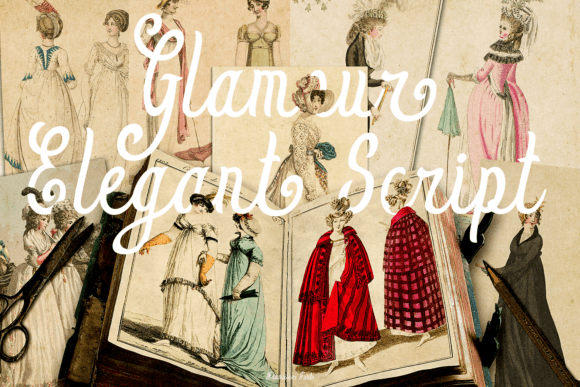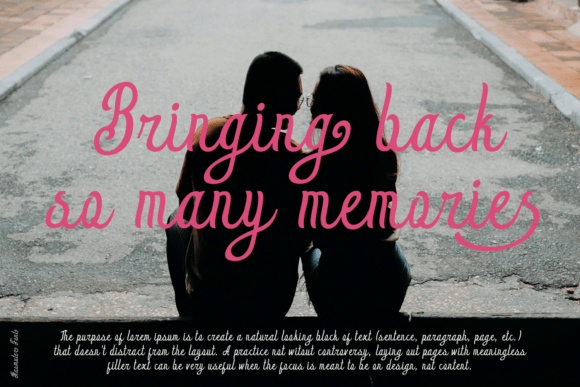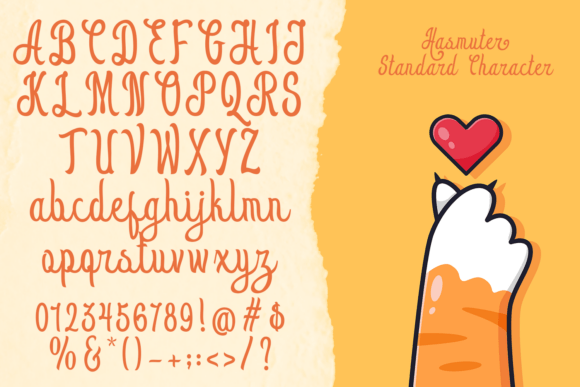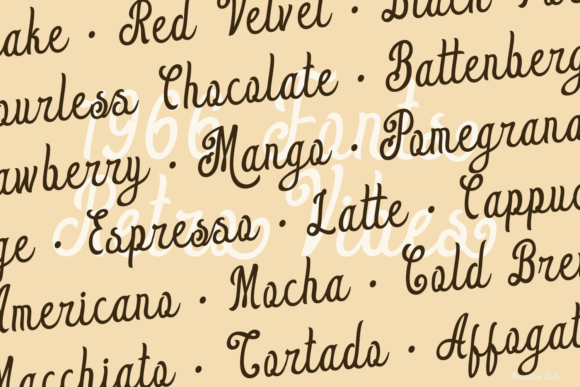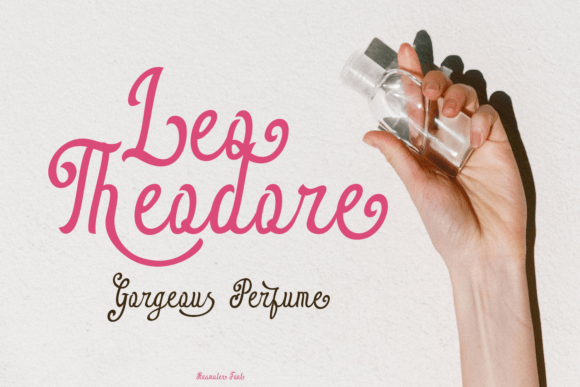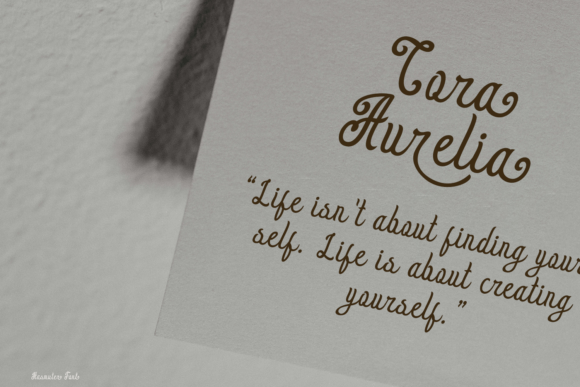
Hasmuter Font: A Timeless Retro Script for Elegant Designs
In the world of typography, fonts play a crucial role in conveying the tone and personality of a design. For designers and crafters looking to add a touch of elegance and nostalgia to their work, the Hasmuter Font is an excellent choice. Specifically, the Hasmuter Brush Classic Script is a retro script that embodies the spirit of the 1970s with its unique blend of retro charm and refined sophistication.
The Essence of Hasmuter Brush Classic Script
The Hasmuter Brush Classic Script is more than just a font; it’s a statement piece that can elevate any design project. This elegant script font is characterized by its smooth curves and sleek lines, making it perfect for a wide range of applications. Whether you’re working on branding, product packaging, invitations, quotes, headlines, labels, posters, or logos, this font is sure to leave a lasting impression.
Why Choose Hasmuter Font?
There are several reasons why designers and crafters should consider adding the Hasmuter Font to their toolkit:
- Elegance and Sophistication: The Hasmuter Brush Classic Script exudes elegance and sophistication, making it ideal for designs that require a touch of refinement.
- Retro Charm: With its 70s retro style, this font brings a nostalgic feel to modern designs, setting them apart from more contemporary typography.
- Versatility: This font can be used across various design projects, from digital content to print materials, due to its clear and readable nature.
- Comfortable Reading: The smooth curves and flowing lines of the Hasmuter Brush Classic Script create a rhythm that is comfortable to read, making it suitable for longer texts as well as headlines.
Applications of Hasmuter Font
The versatility of the Hasmuter Font makes it suitable for a multitude of design applications:
- Branding: Use the Hasmuter Brush Classic Script to create memorable brand names or taglines that stand out.
- Product Packaging: Add a touch of elegance and retro charm to your product packaging, making it more appealing to customers.
- Invitations: Whether it’s a wedding invitation or a party invite, this font adds a classy and sophisticated touch.
- Quotes and Headlines: The elegant nature of the font makes it perfect for highlighting quotes or creating compelling headlines.
- Logos: For businesses looking for a unique and memorable logo, the Hasmuter Brush Classic Script can be a great choice.
Tips for Using Hasmuter Font
To get the most out of the Hasmuter Font, consider the following tips:
- Experiment with Sizes: The Hasmuter Brush Classic Script looks great in various sizes, from large headlines to smaller body text.
- Combine with Other Fonts: Don’t be afraid to combine this font with other typography to create a unique and visually appealing design.
- Play with Colors: The font’s elegant lines and curves look great in a variety of colors, so experiment to find the perfect hue for your design.
The Hasmuter Font, particularly the Hasmuter Brush Classic Script, is a valuable addition to any designer’s or crafter’s collection. Its unique blend of retro charm and elegance makes it suitable for a wide range of design projects. By incorporating this font into your work, you can create visually appealing and memorable designs that stand out from the crowd. Whether you’re aiming for a nostalgic feel or simply looking to add a touch of sophistication to your designs, the Hasmuter Font is an excellent choice.